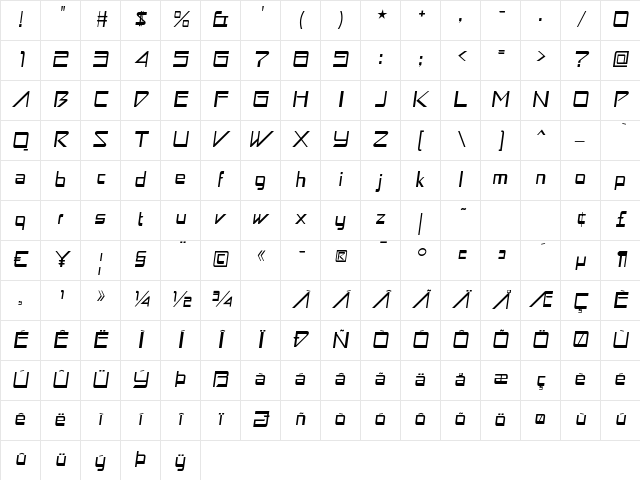
Astron Boy Italic Free Font
Astron Boy Italic
Design Context for Astron Boy
Astron Boy is a composed and adaptable typeface that performs quietly and consistently across a wide range of design contexts. The slanted form adds forward momentum and visual energy.
Pro Tip: Use Astron Boy for emphasis, pull quotes, and subheadings where its slanted energy can add rhythm to the layout.